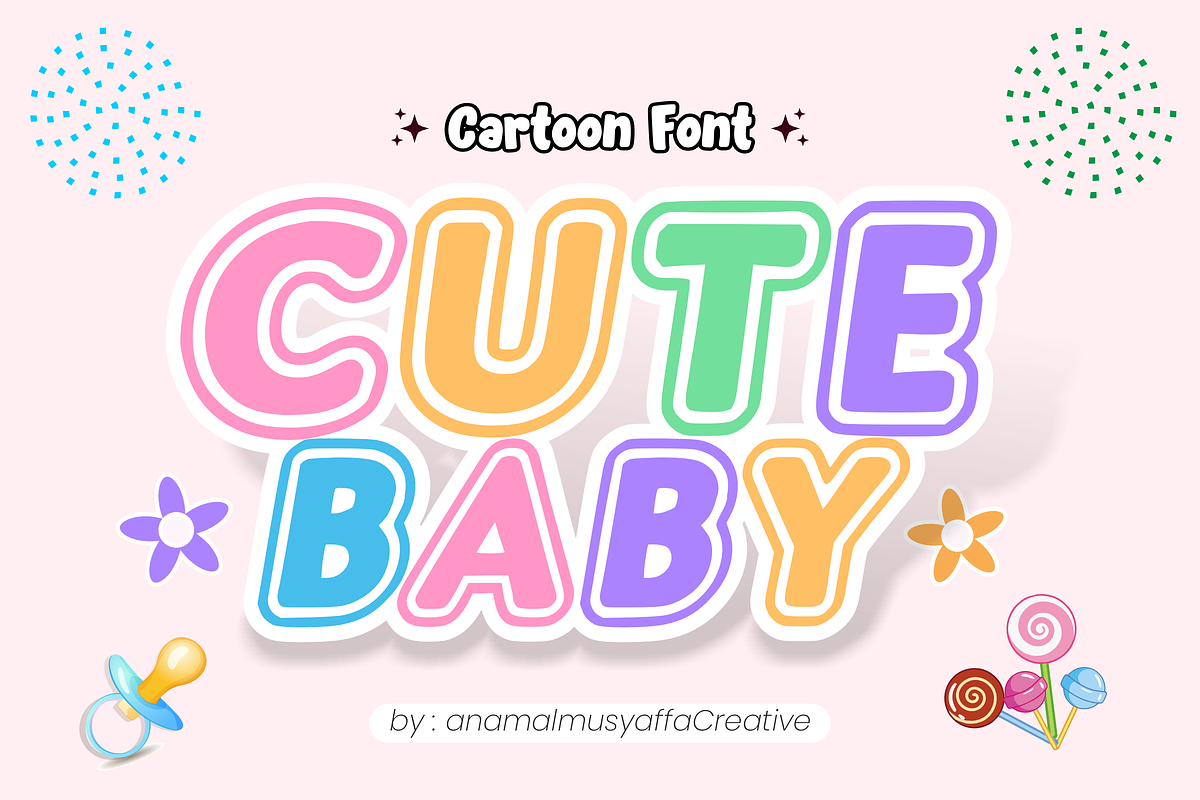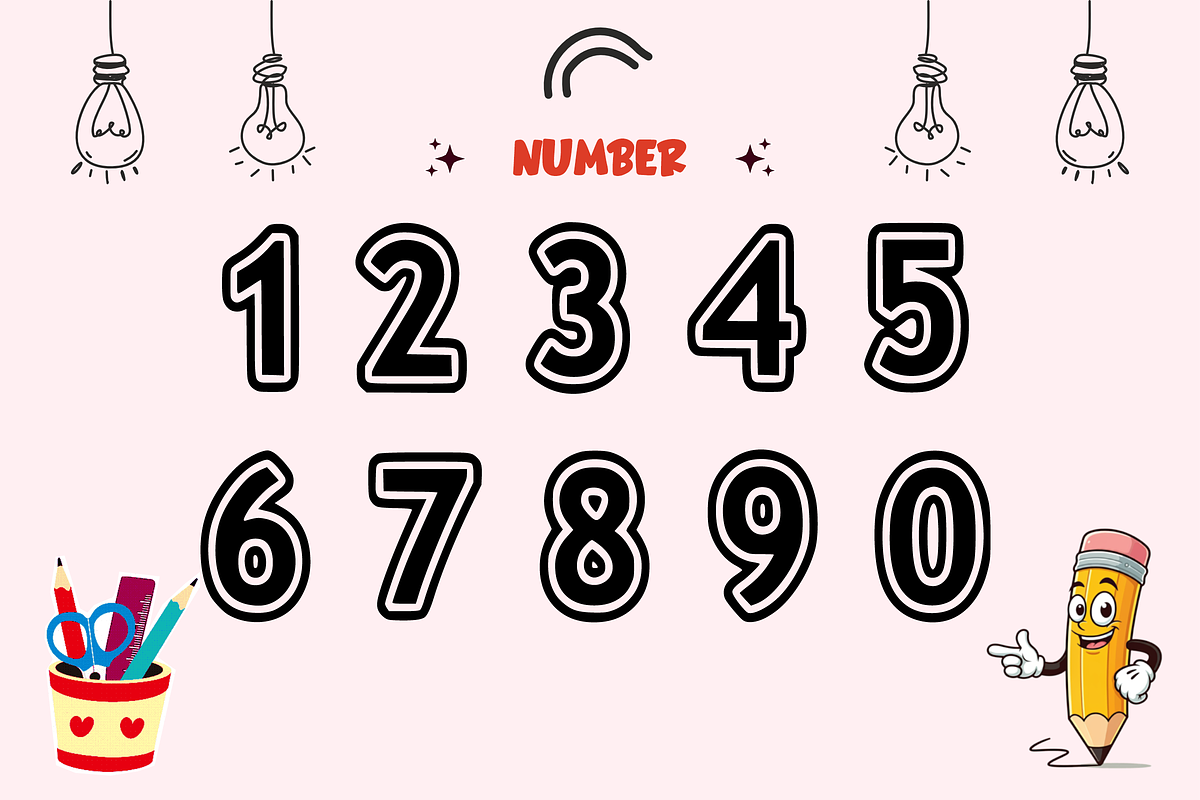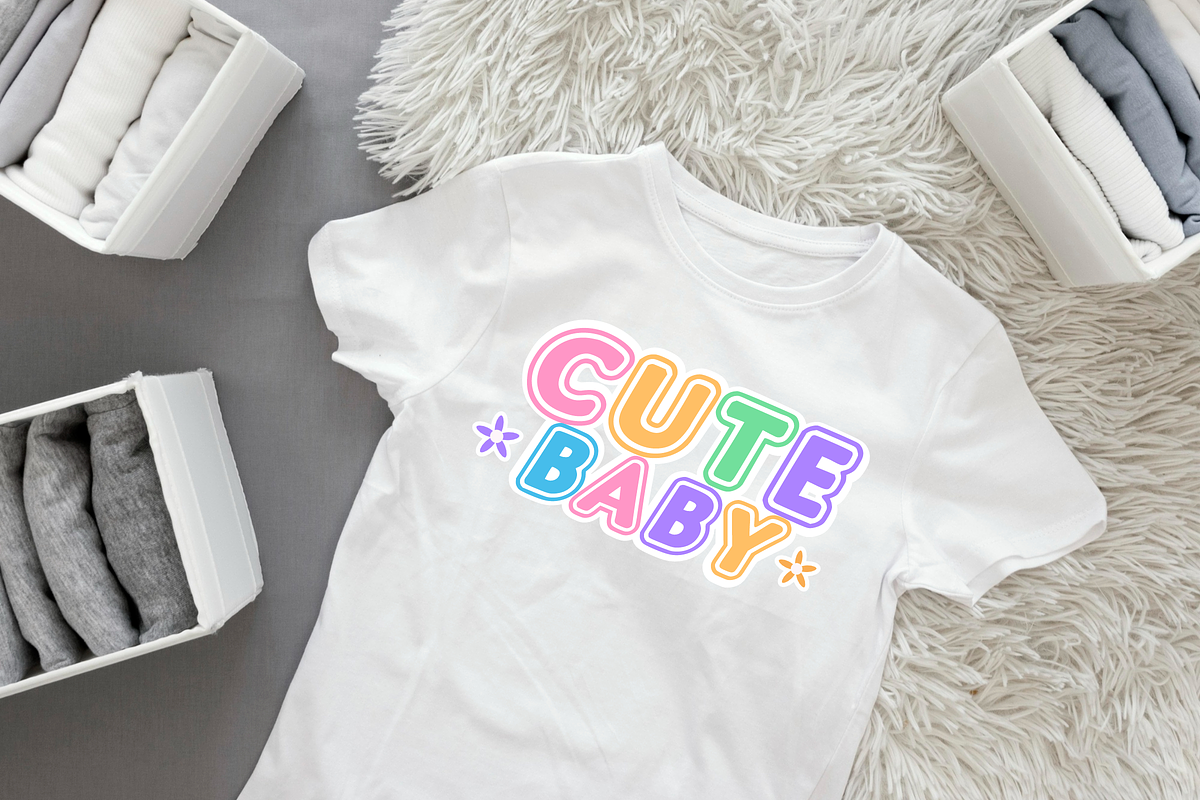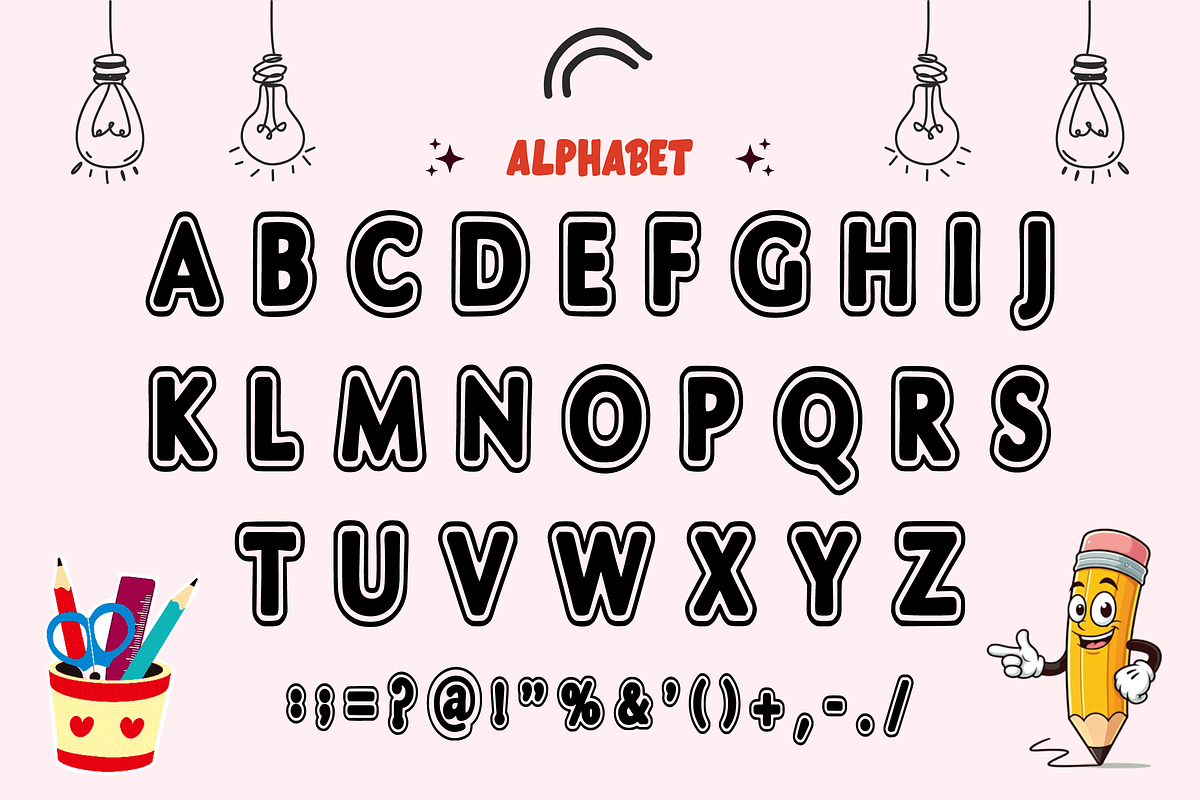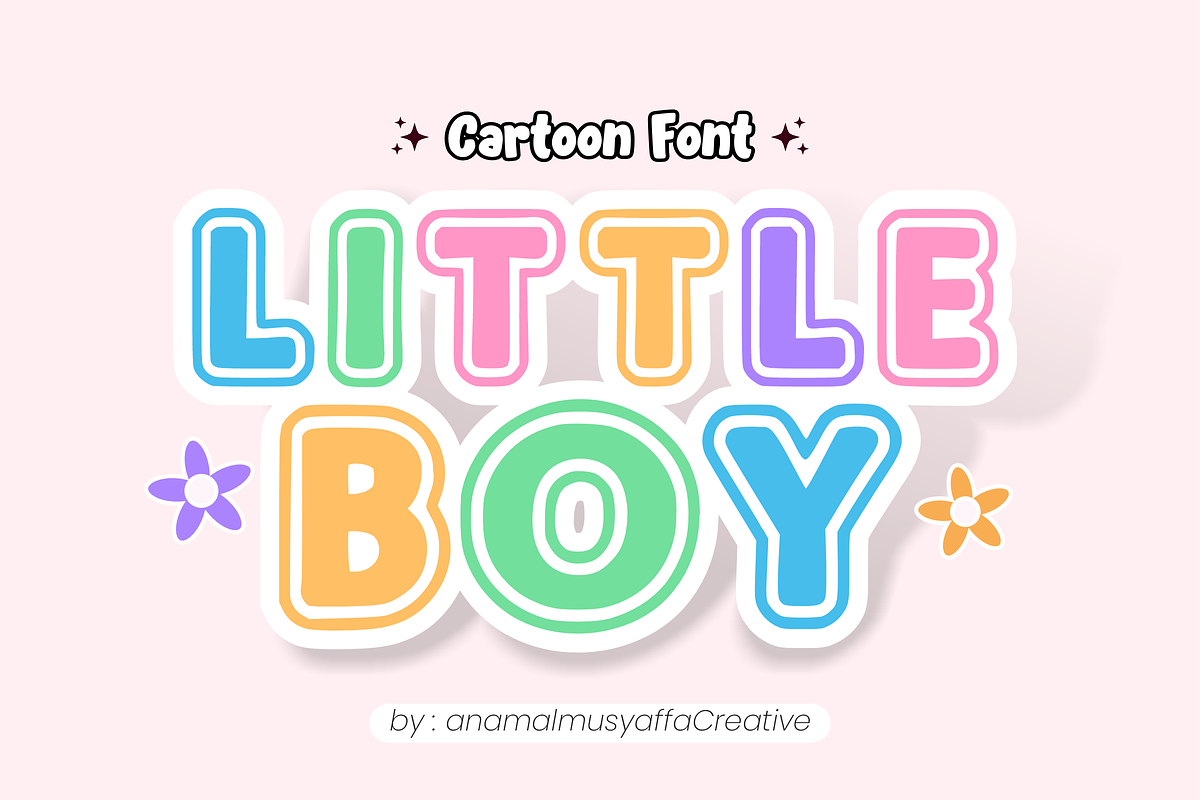
Little Boy - Display Font
👦 Little Boy: Sweet & Playful Cartoon Font 🍭 Add a touch of joy to your creative projects with Little Boy! This delightful display font features soft, rounded edges and a charming "sticker-style" white outline that makes every letter pop. It is perfectly crafted to capture the innocent and fun spirit of childhood.
Designed with a bold yet friendly silhouette, Little Boy is incredibly versatile for any design that needs a cheerful, high-energy, and modern cartoon look.
Main Features:
🔠 Uppercase Alphabet – Smooth, bubbly, and easy-to-read characters.
🔢 Numeric Set – Playful numbers that match the bouncy font style.
✨ Basic Symbols – Essential punctuation for all your creative needs.
🎂 Kids' Birthday Invitations & Stationery
🧸 Toy Packaging & Product Branding
👕 Children’s Apparel & Merchandise
📚 Picture Books & Educational Covers
🎬 YouTube Thumbnails & Social Media Graphics